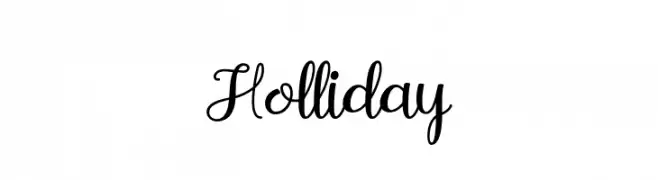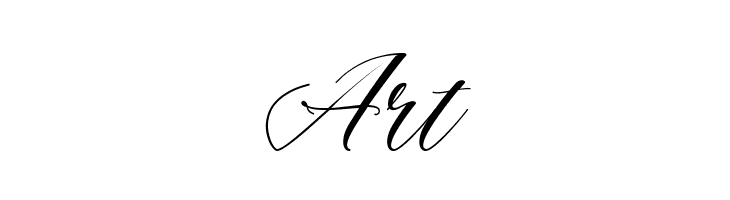
• Higher Monday Regular
A flowing, cursive font with elegant loops and smooth transitions.
• HigherMonday-Regular
A smooth, flowing script font with elegant curves and a handwritten aesthetic.
• Rainy Day Regular
A playful handwritten font with smooth, rounded strokes and a casual, friendly appearance.
• Holliday
A playful and elegant script font with smooth, flowing lines and decorative flourishes.
• Christmas Night-Personal Use
A festive and elegant cursive font with decorative swirls, perfect for holiday themes.
• Christmas Bright - Personal Use
A festive, cursive font with elegant loops and swirls, perfect for holiday themes.
• Rankday Regular
An edgy, hand-drawn font with sharp, irregular edges and a dramatic appearance.
• Signaday
A casual and elegant handwritten font with fluid, connected letterforms.
• Party Day Demo
A bold, decorative font with letters in flag-like banners, ideal for festive occasions.
• Lotherday
An elegant script font with flowing, cursive style and intricate flourishes.